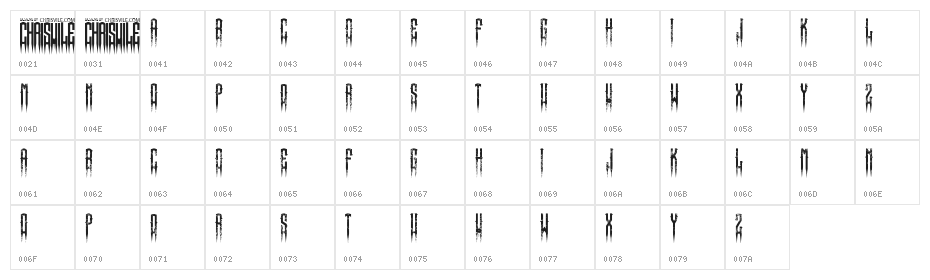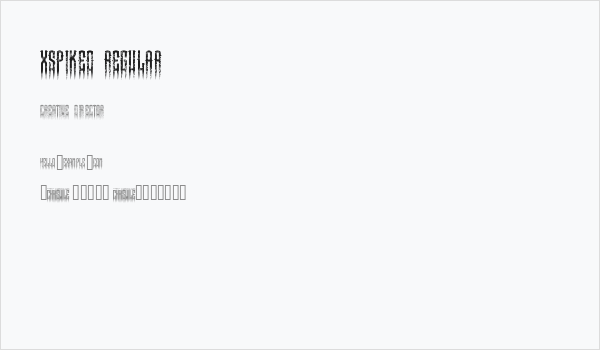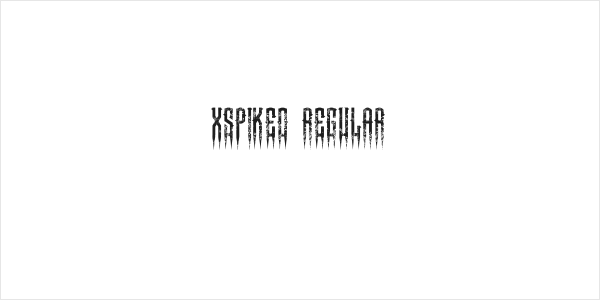
XSpiked Regular Font
XSpiked Regular Description
This font features a striking, jagged design that mimics the appearance of spikes or icicles. The uppercase and lowercase letters are elongated with sharp, pointed ends, creating a dramatic and edgy look. The texture within the characters adds a distressed, grunge-like effect, enhancing its bold and aggressive style. This font is highly decorative, making it ideal for projects that require a strong visual impact. The unique design elements make it stand out, suitable for themes related to horror, metal music, or extreme sports.
| Use Case | Logos, Posters, Themed Events |
| Proposed Projects | Ideal for horror movie posters, metal band logos, extreme sports branding, and Halloween-themed designs. |